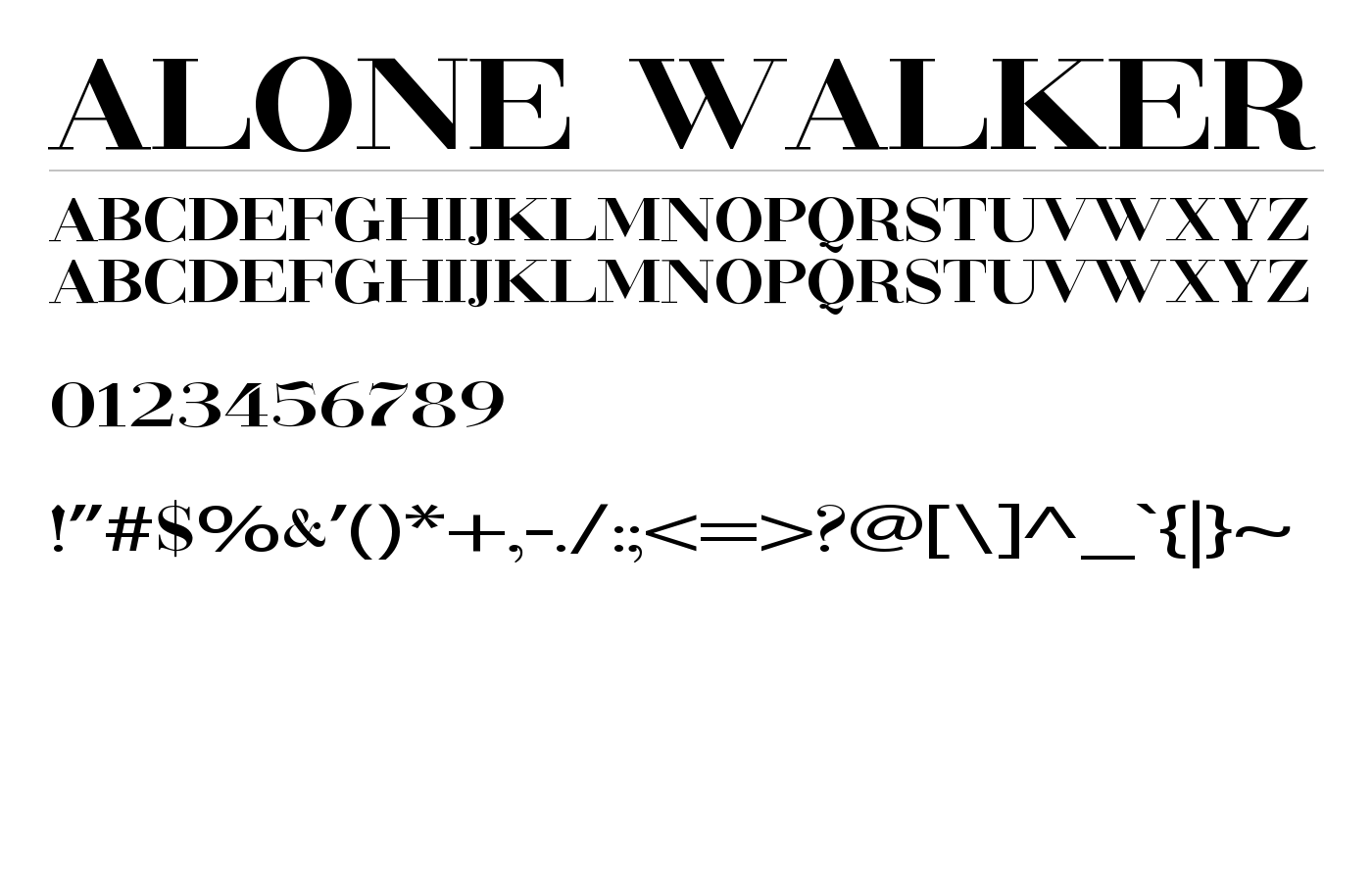
Alone Walker is a sophisticated serif font that exudes elegance and refinement with its high contrast strokes and sharp, thin serifs. Perfect for luxury branding, editorial headlines, and fashion-focused design, it delivers a timeless and classy feel while maintaining strong readability in all caps. This font works beautifully where a bold yet polished statement is needed.
Alone Walker Font
About Alone Walker Font
| Font family | Alone Walker Font |
| Designer | Usman Albaehaqi |